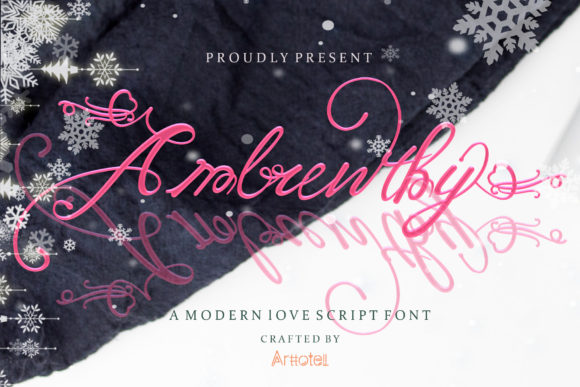
Ambrewthy Font
Welcome to the world of Ambrewthy Font, your new favorite script font that resonates with love and kindness. Experience creativity like never before as this beautiful font flows effortlessly, leaving a trail of elegance in its wake. Let Ambrewthy's intricate curves and charming personality capture your heart, transforming your digital creations into masterpieces.
Imagine words that dance gracefully across the screen, conveying heartfelt messages with a touch of sophistication. Ambrewthy Font is more than just a font; it's a vessel for expressing your emotions and connecting with your audience. From heartfelt love letters to heartfelt blog posts, this font orchestrates a symphony of emotions, leaving a lasting impression that will linger in the minds of your readers.
Unleash your creativity and weave your magic with Ambrewthy Font. Dive into the realm of poetry, where words take on new meaning, and every sentence becomes a captivating narrative. Design enchanting invitations, greeting cards, and social media posts that radiate warmth and grace. With Ambrewthy Font as your ally, you'll turn ordinary words into extraordinary expressions.
Explore the boundaries of your imagination and transform your digital designs into masterpieces that speak to the soul. Whether you're a seasoned designer or just starting your creative journey, Ambrewthy Font is the perfect companion for your artistic endeavors. With its versatility and timeless appeal, this font adapts to any project, adding a touch of uniqueness that sets your work apart.
Embrace the beauty of Ambrewthy Font and elevate your creations to new heights. Immerse yourself in its enchanting charm, and let your words take flight, captivating your audience and leaving an indelible mark. Dare to be different and let Ambrewthy Font ignite your creativity, one stroke at a time.